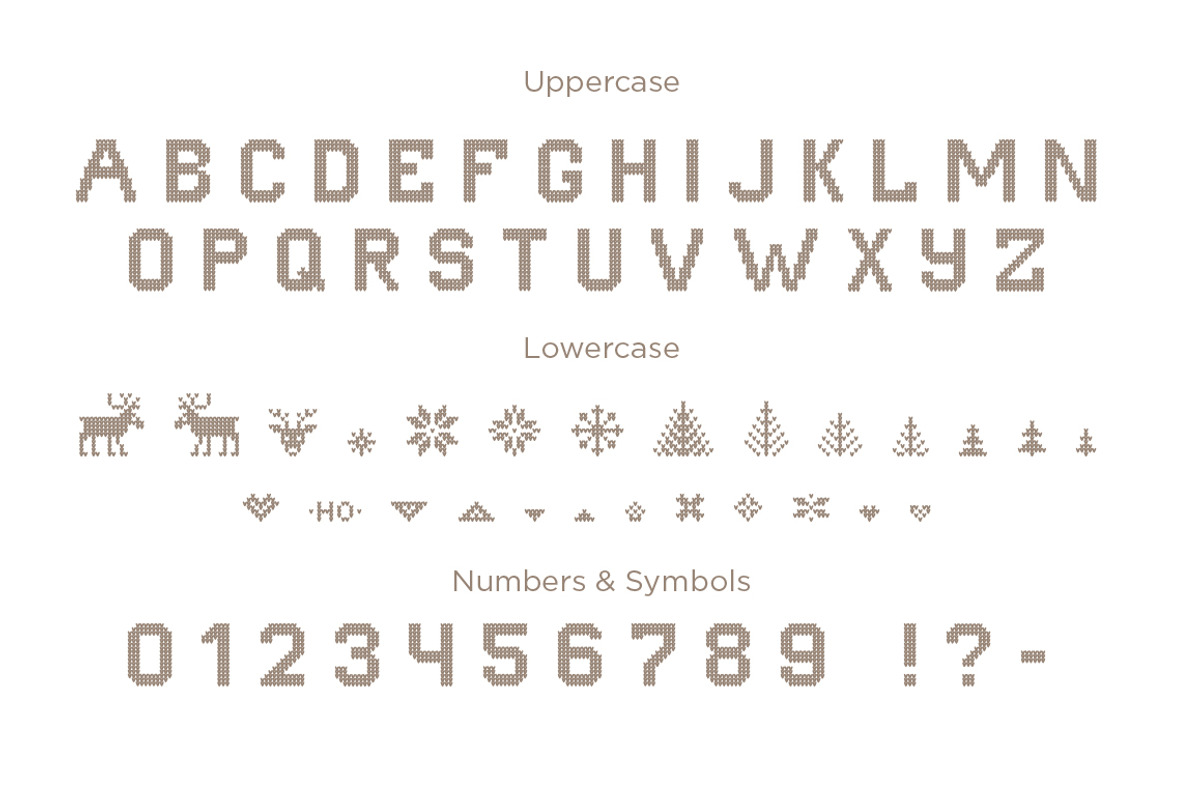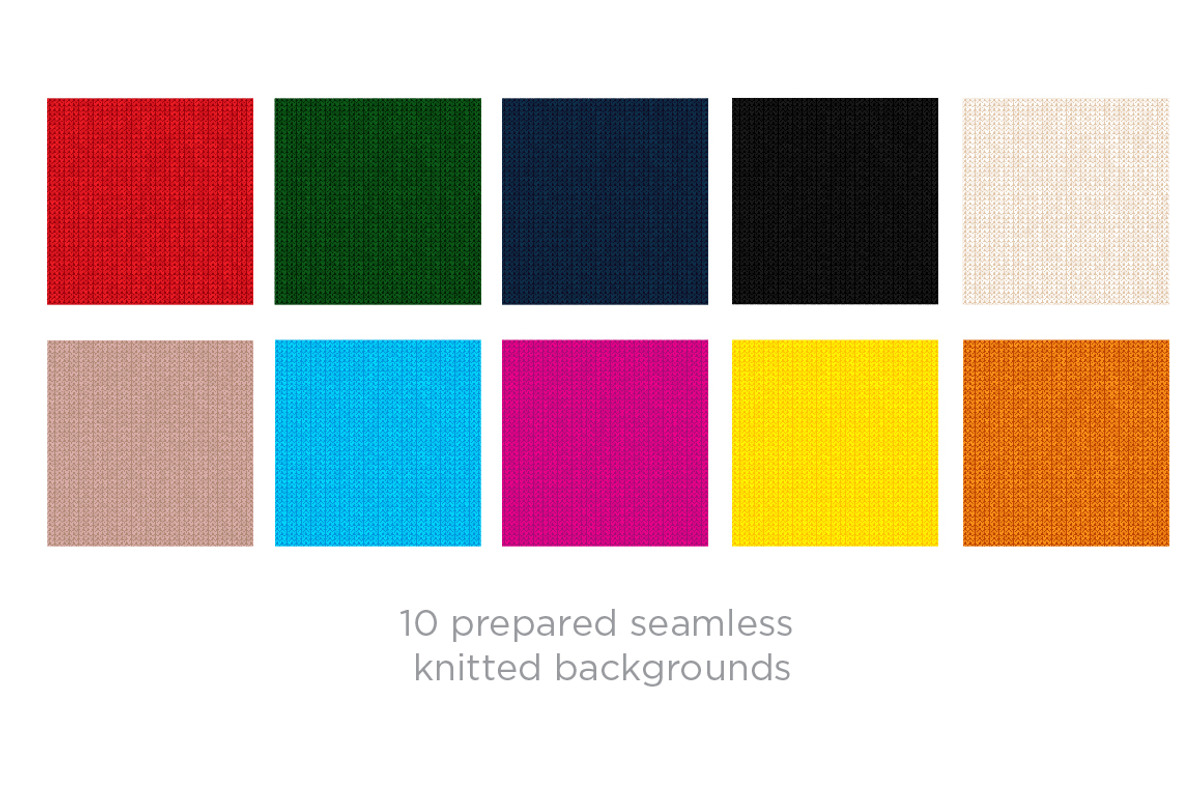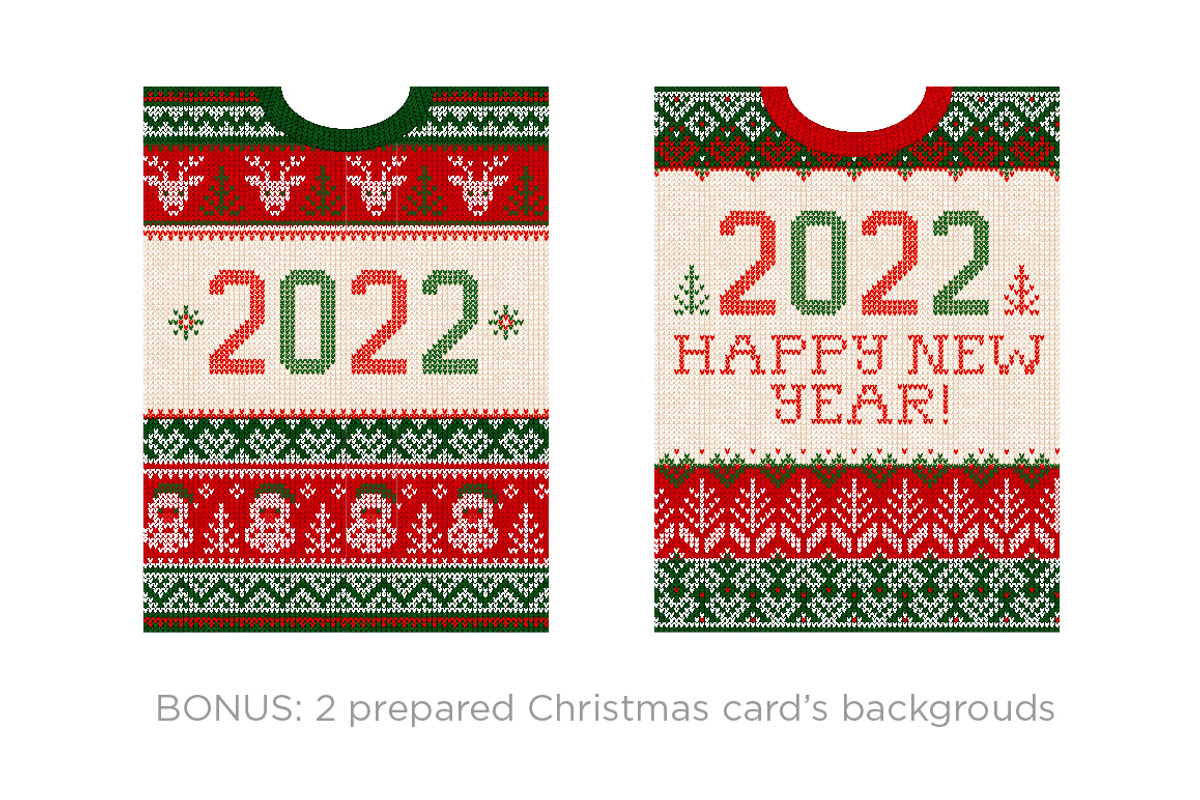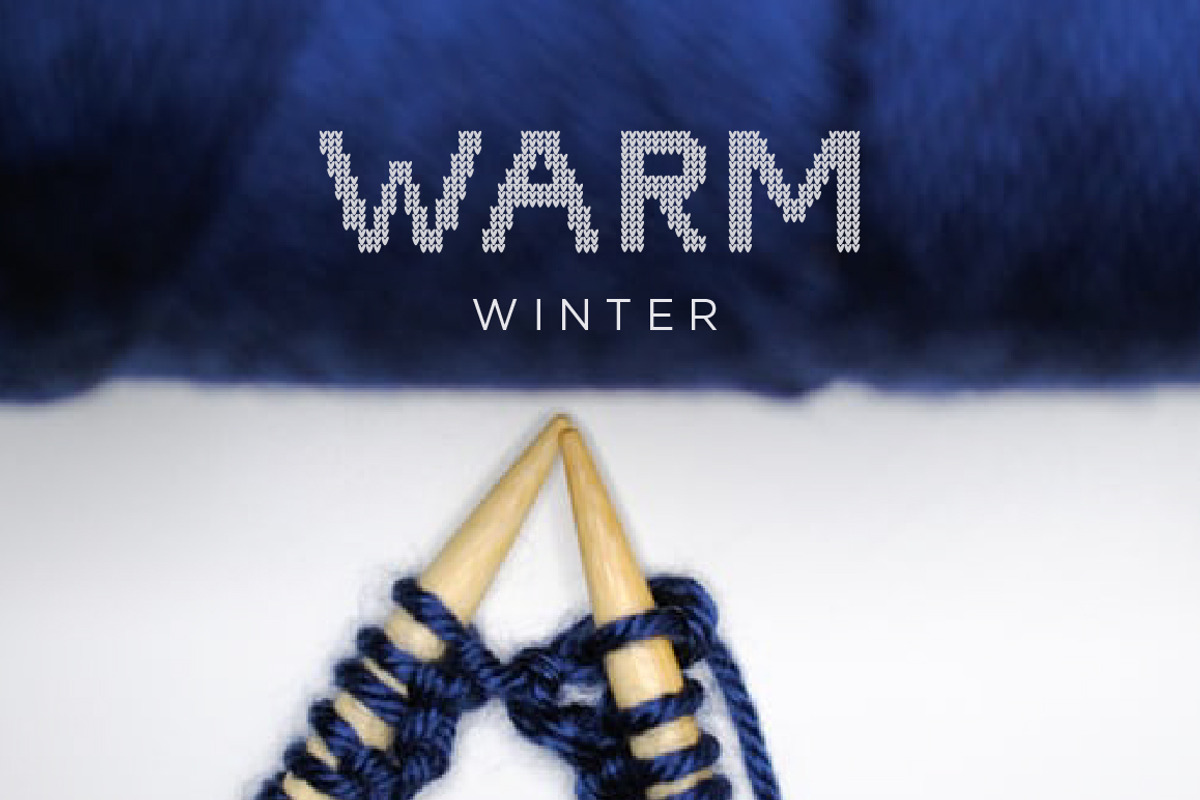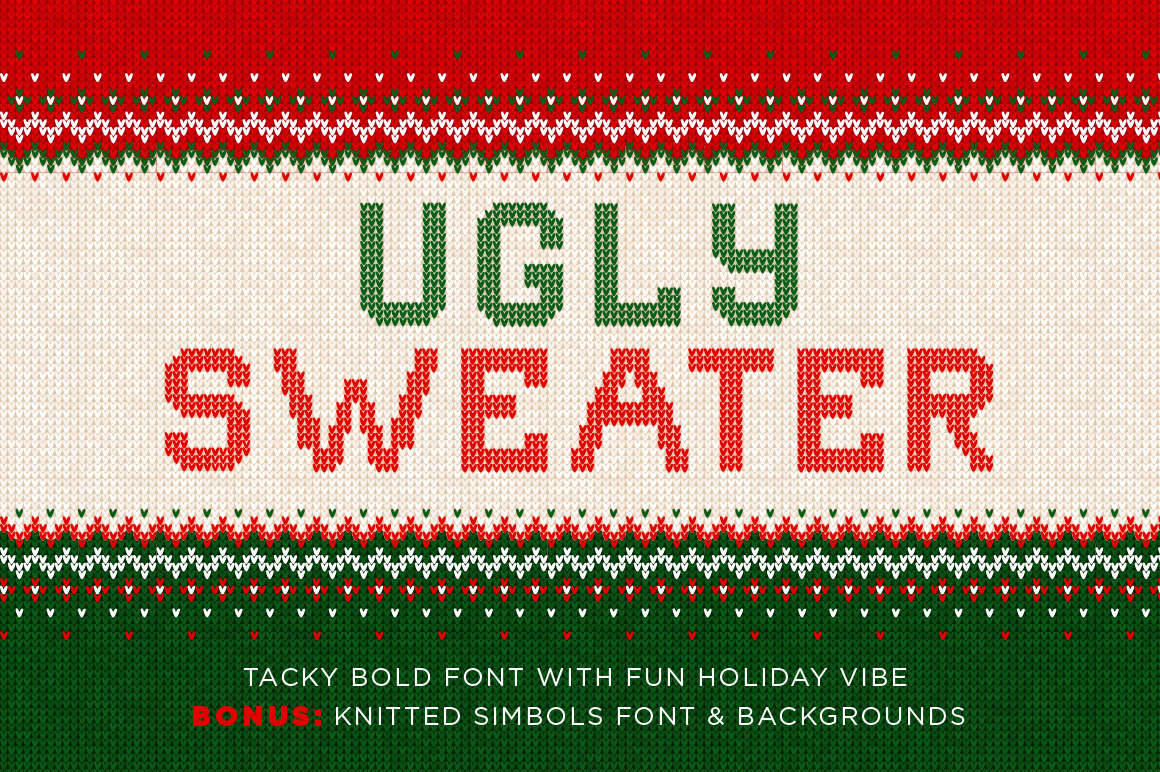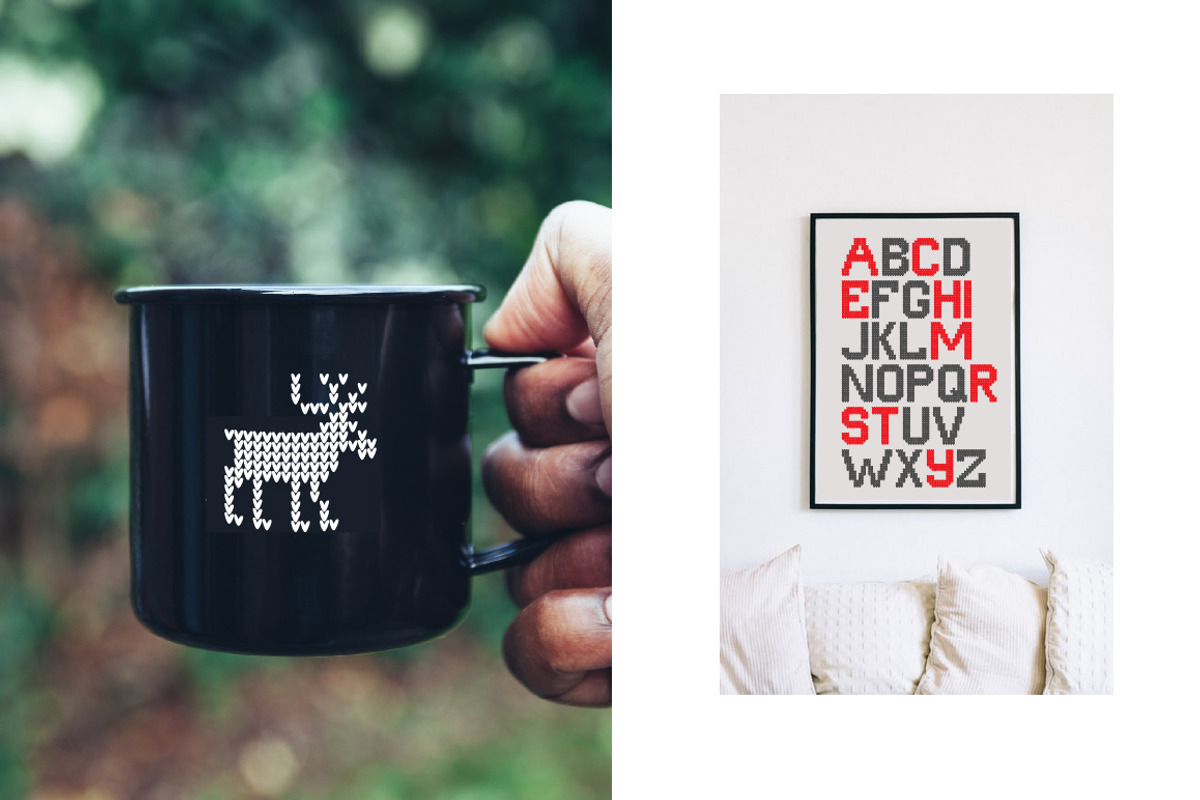
UGLY SWEATER Font and backs
UGLY SWEATER Font and Seamless Pattern Bundle
Description: Embrace the cozy holiday spirit with our UGLY SWEATER Font! This tacky yet charming typeface brings a festive vibe to your projects. From sassy snowflakes to jolly reindeer, it's adorned with all the merry elements of Christmas. What's more, this font is incredibly versatile. Switch to lowercase and let your text sparkle with cheerful symbols like snowflakes, trees, reindeer, and Santa Claus.
- Complete character set from A to Z
- Lowercase symbols for added festivity
- Numerals and punctuation for full versatility
Key Usage Ideas:
- Ugly Sweater Party Invitations
- Festive Greeting Cards
- Holiday Apparel Designs
- Cozy Christmas Merchandise
- Joyful Social Media Posts